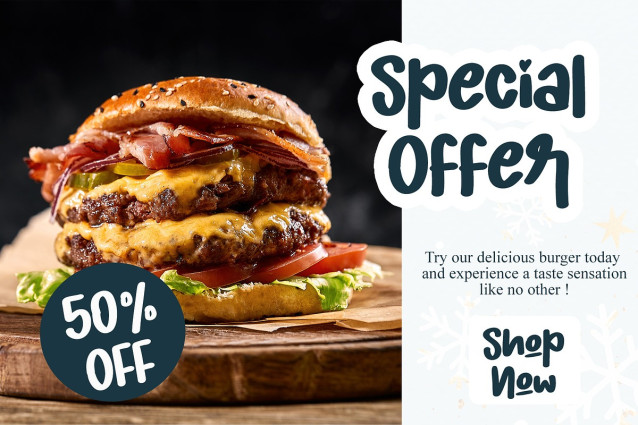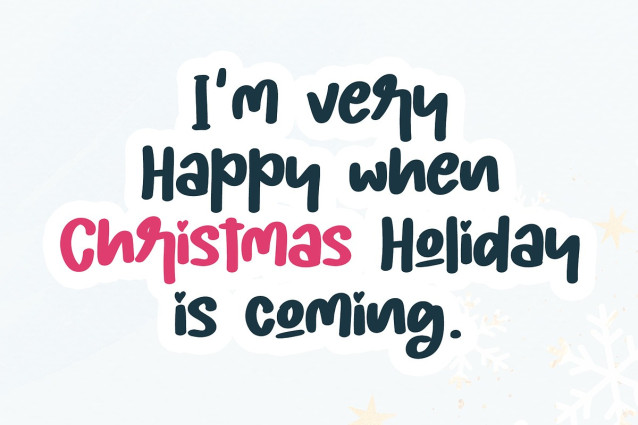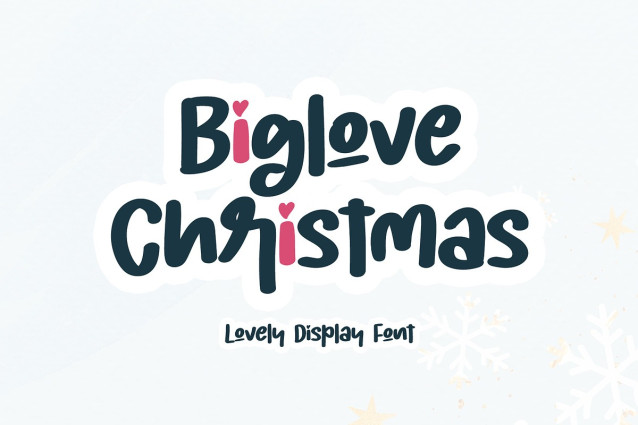
Biglove Christmas Font
Biglove Christmas Font is lovely, cute and fun display font. This original look will appeal to a wide range of crafty ideas, from letterheads and titles to stationery.